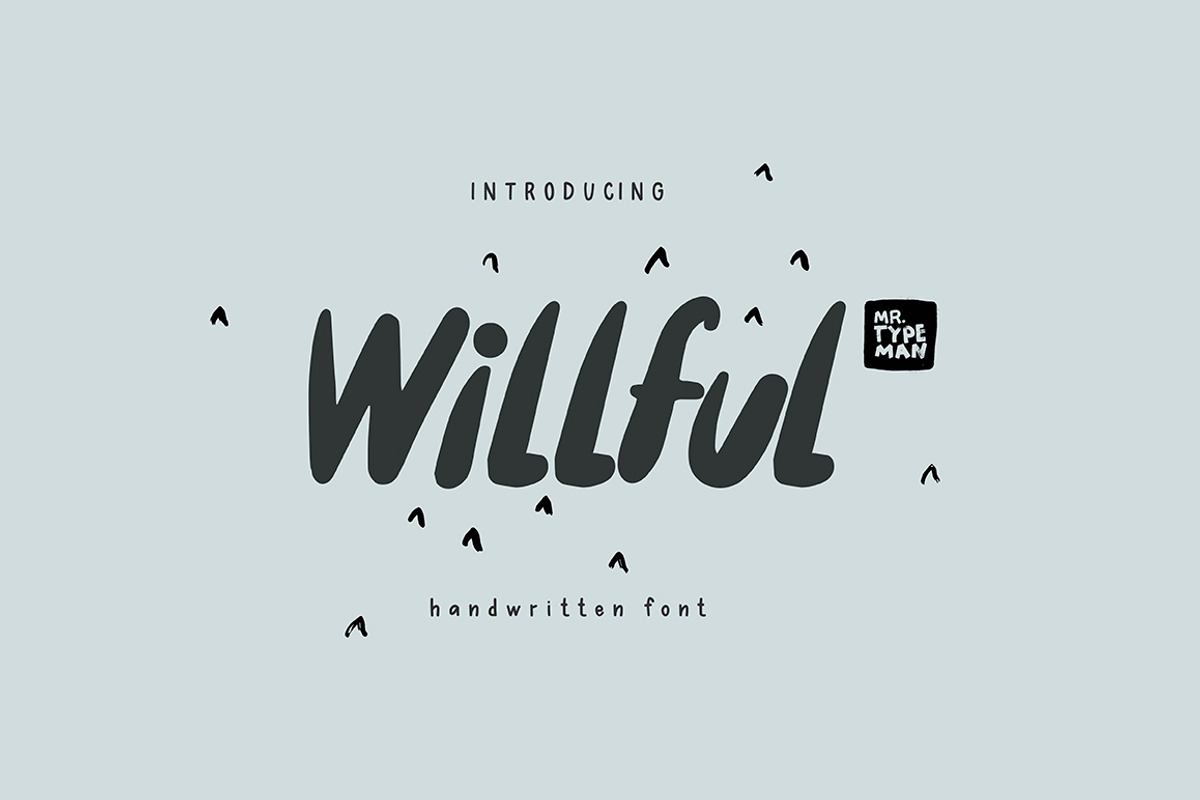
Willful Handwritten Brush Font Free Download
The Willful Handwritten Brush Font Free Download is a bold and expressive typeface with a natural brush-stroke feel. Perfect for personal projects, branding, social media graphics, invitations, and creative designs, this font adds an artistic, handmade touch to any project.
With its dynamic, uneven strokes and lively character, Willful brings personality and flair to your typography. It includes uppercase and lowercase letters, numbers, punctuation, and multilingual support, ensuring versatility for a wide range of creative applications.